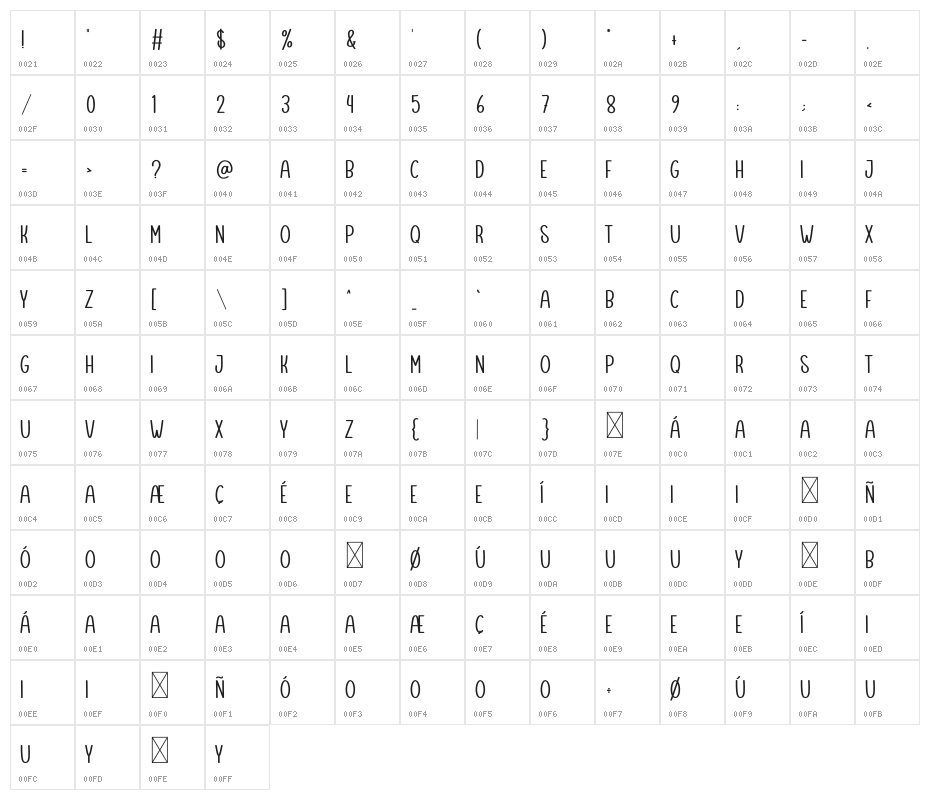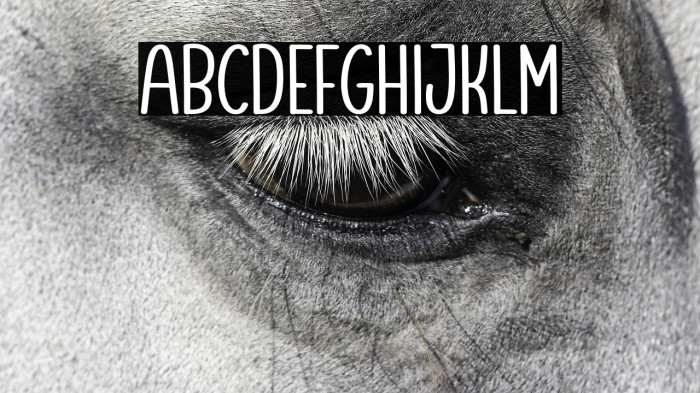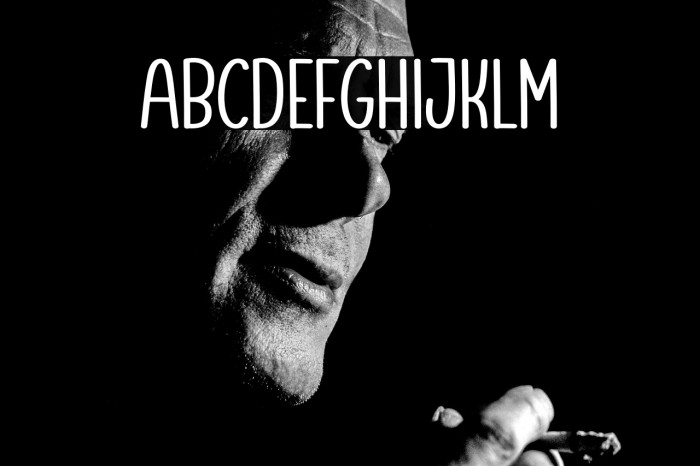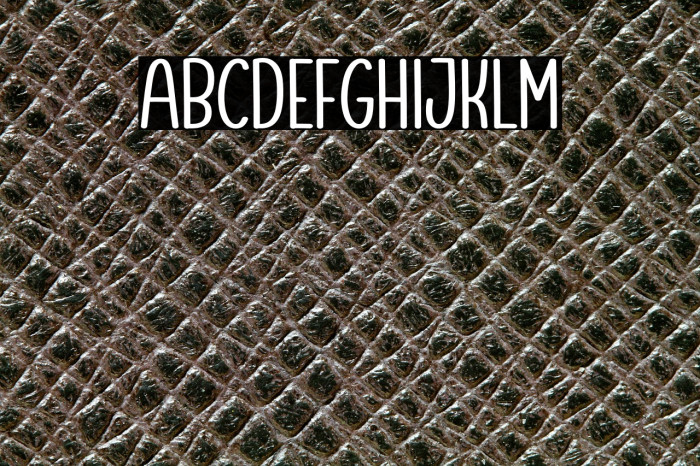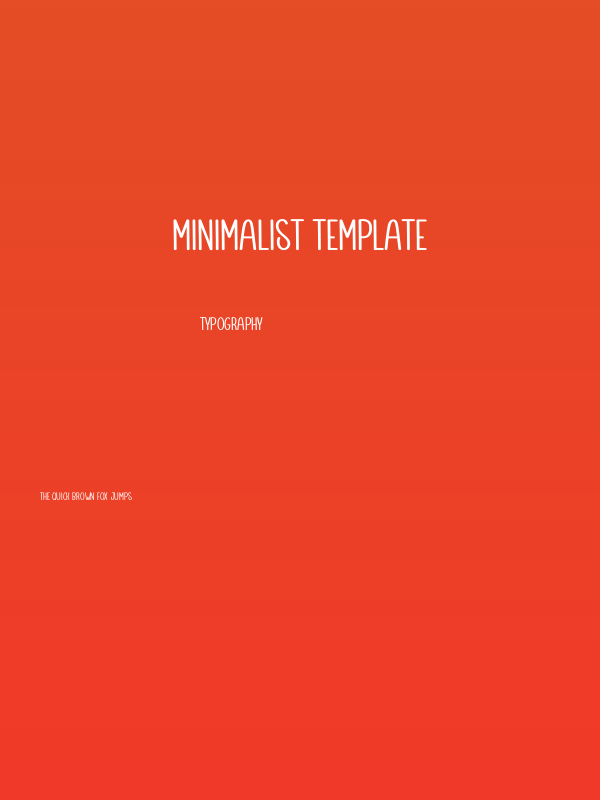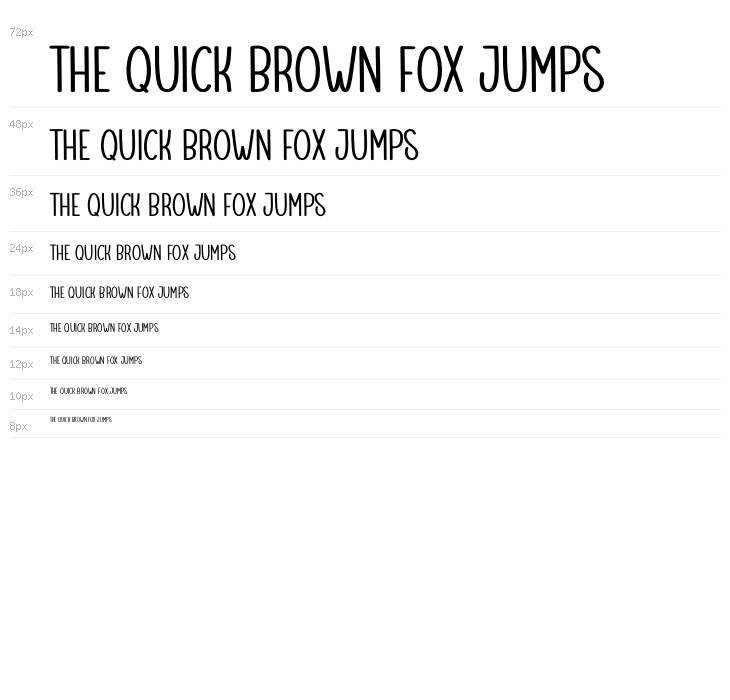
Minimalist Template Font
Minimalist Template Description
A playful, handwritten font with rounded edges and a casual style, featuring consistent stroke width and slightly irregular character shapes.
| Use Case | Headlines, Informal text, Logos |
| Proposed Projects | Greeting cards, children's books, casual branding. |